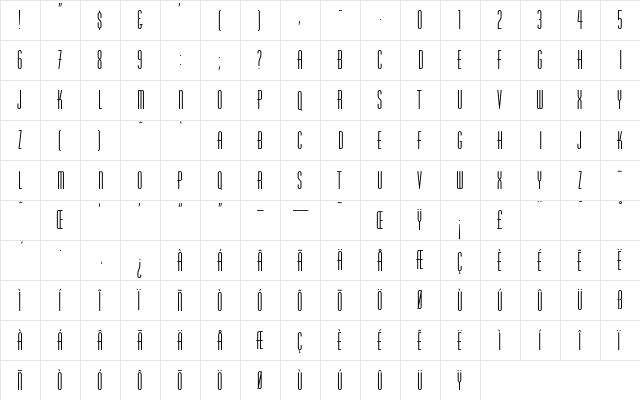
Chrysler-Compressed Regular
Design Context for Chrysler-Compressed Typeface
Chrysler-Compressed takes a measured approach to typography — its balanced proportions and neutral character make it a reliable workhorse for both digital and print work.